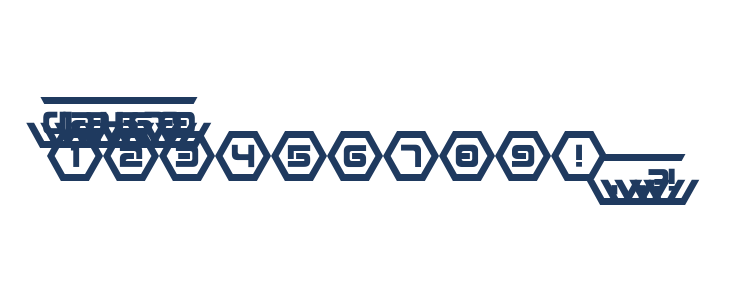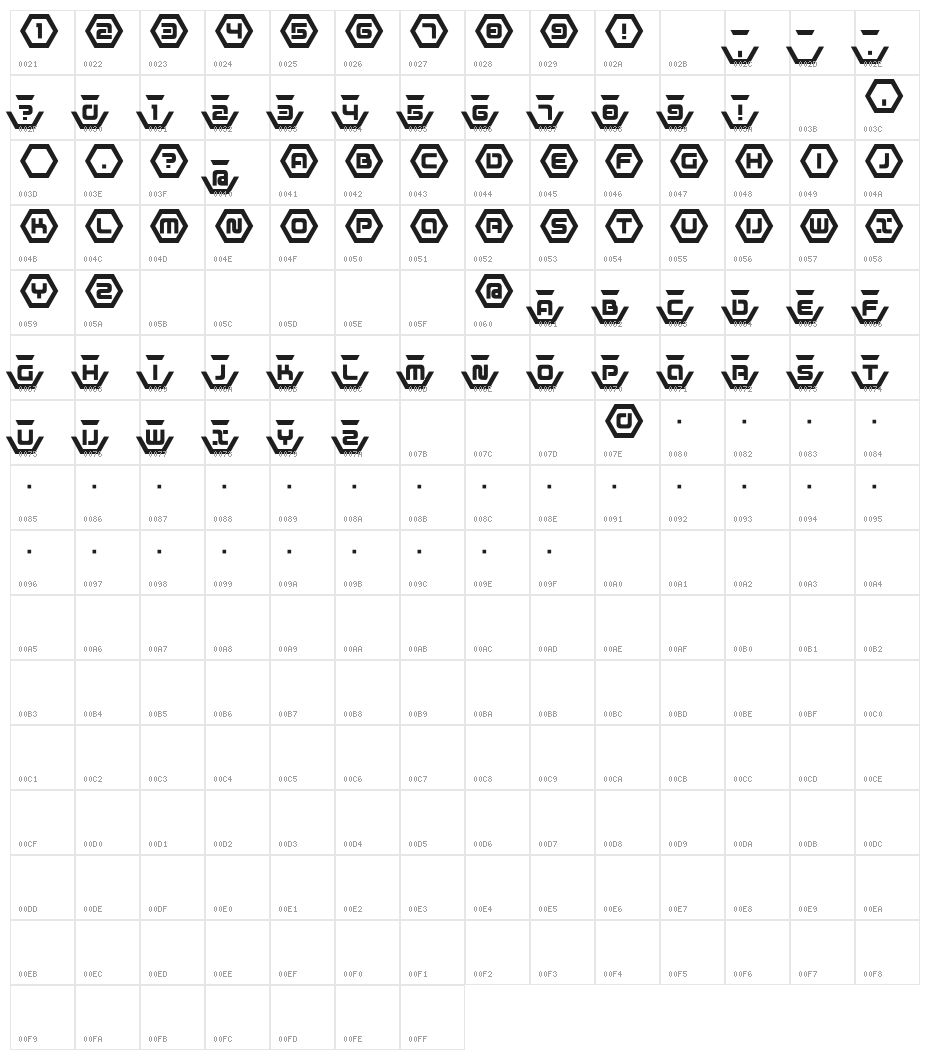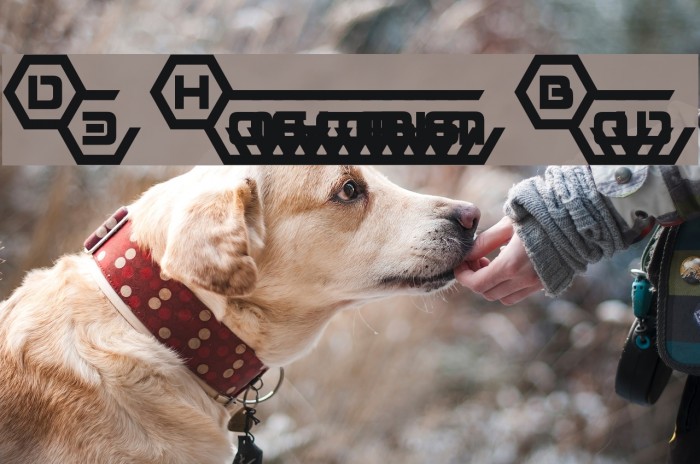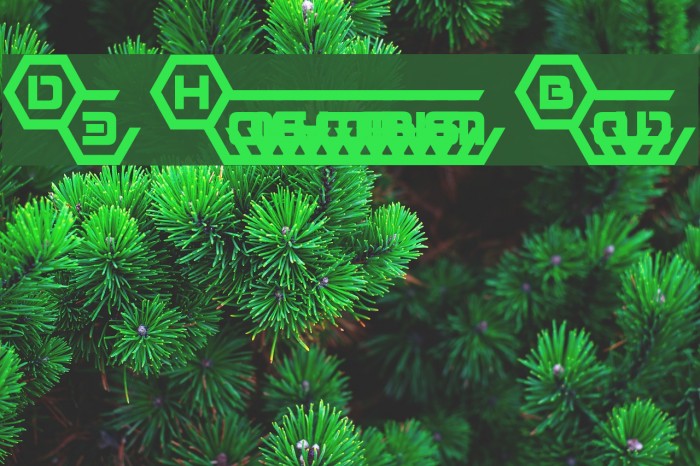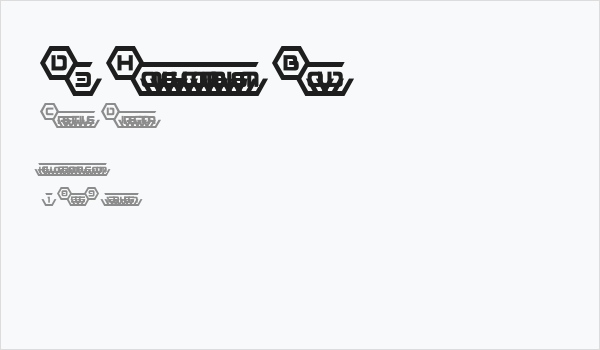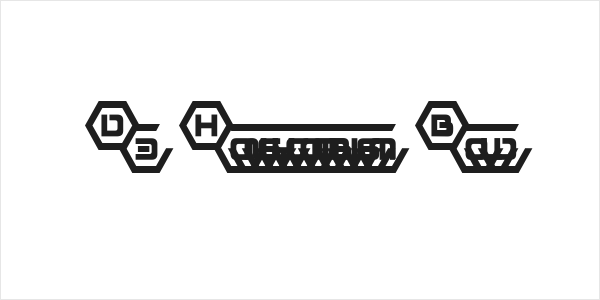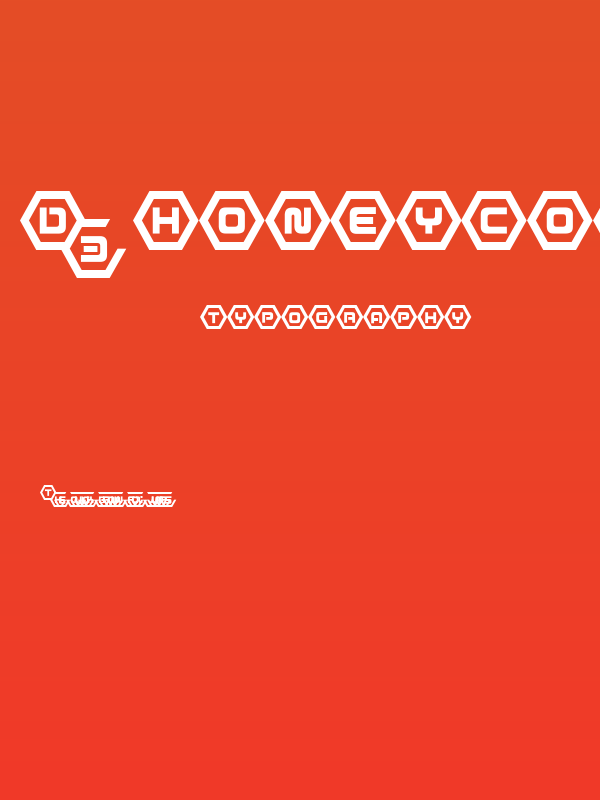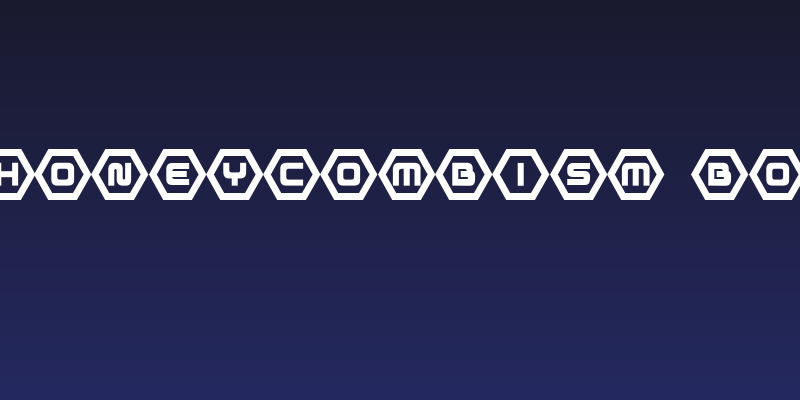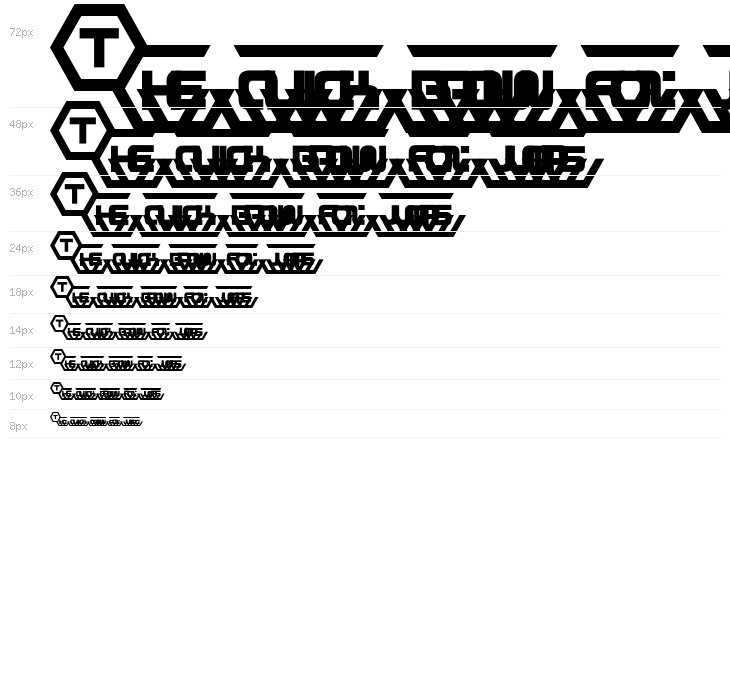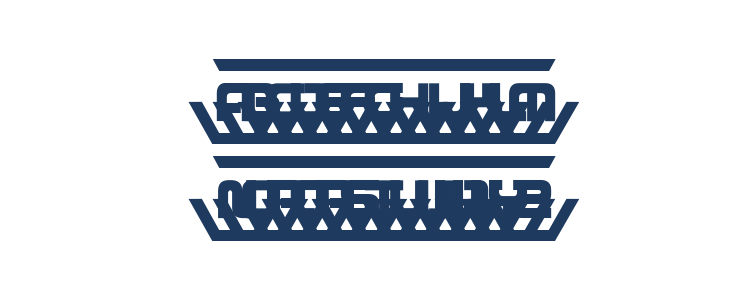
D3 Honeycombism Bold Font
D3 Honeycombism Bold Description
This font features a unique hexagonal design, where each character is enclosed within a hexagon, creating a bold and geometric appearance. The uppercase letters are distinct and angular, emphasizing a futuristic and industrial aesthetic. The numbers and special characters follow the same hexagonal pattern, ensuring consistency across the font. The boldness of the characters makes them stand out, ideal for attention-grabbing designs. The overall style is modern and decorative, suitable for projects that require a strong visual impact.
| Proposed Projects | Ideal for sci-fi themed posters, video game graphics, futuristic branding, and tech-related advertisements. |